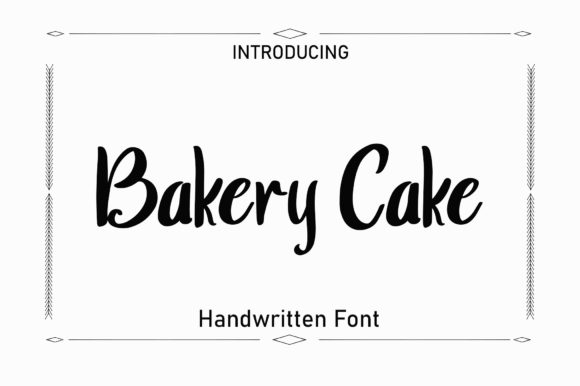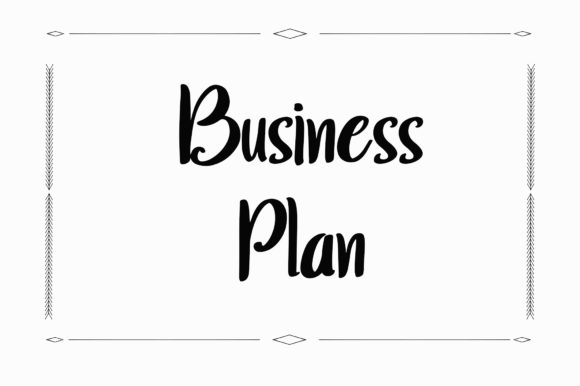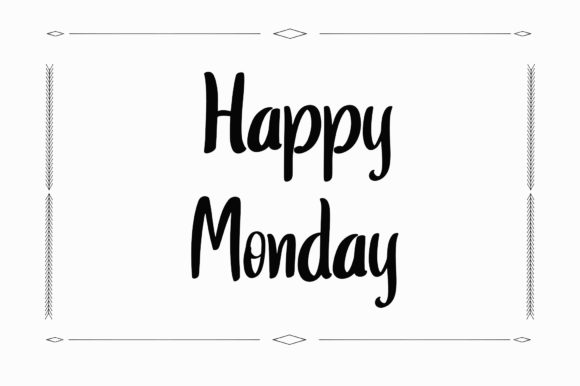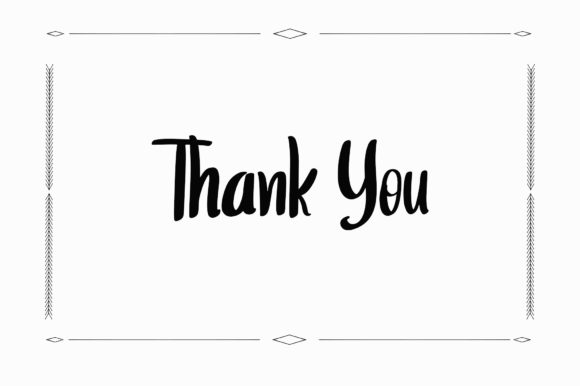
About Bakery Cake Font
“Bakery Cake” is not just a font—it’s a delightful expression of creativity and whimsy, imbued with a unique style that adds a playful touch to any project. With its fun handwritten design, this font has the power to breathe life into your most imaginative ideas, making them truly stand out.
Whether you’re crafting handmade greeting cards, designing digital graphics, preparing engaging presentations, or indulging in creative crafts, “Bakery Cake” is the perfect companion for your endeavors. Its versatility and charm make it suitable for any occasion, ensuring it becomes your favorite go-to font for all your design needs.
The unique style of “Bakery Cake” sets it apart, adding a sense of personality and character to your designs. Its playful demeanor and whimsical flair make it a joy to work with, inspiring creativity and sparking imagination.
Moreover, “Bakery Cake” is highly adaptable, seamlessly integrating into various design styles and themes. Its fun handwritten aesthetic adds a touch of warmth and charm to every project, making it a versatile choice for designers seeking to infuse their creations with a sense of fun and creativity.
In addition to its aesthetic appeal, “Bakery Cake” offers practicality and ease of use. Its clean and legible letterforms ensure readability across different mediums and platforms, ensuring your message is effectively communicated to your audience.
In summary, “Bakery Cake” is more than just a font—it’s a versatile and inspiring tool that empowers designers to bring their most creative ideas to life. Whether you’re crafting crafts, digital designs, presentations, or greeting cards, this font adds a touch of whimsy and delight to every project, making it a cherished favorite in your design arsenal.